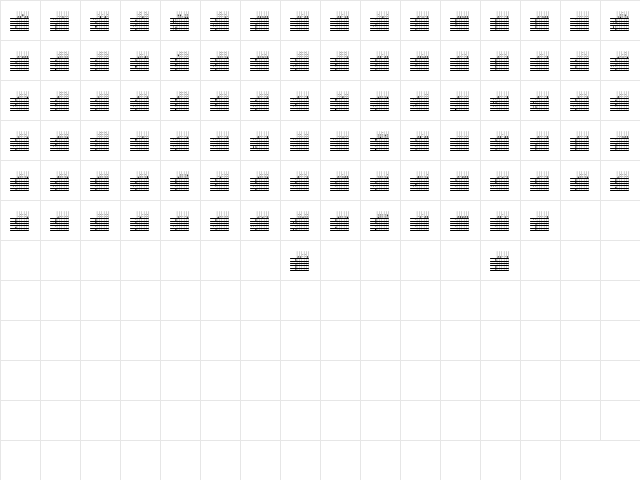
Logic twenty-five Q Regular
Design Context for Logic twenty-five Q Typeface
Logic twenty-five Q takes a measured approach to typography — its balanced proportions and neutral character make it a reliable workhorse for both digital and print work.